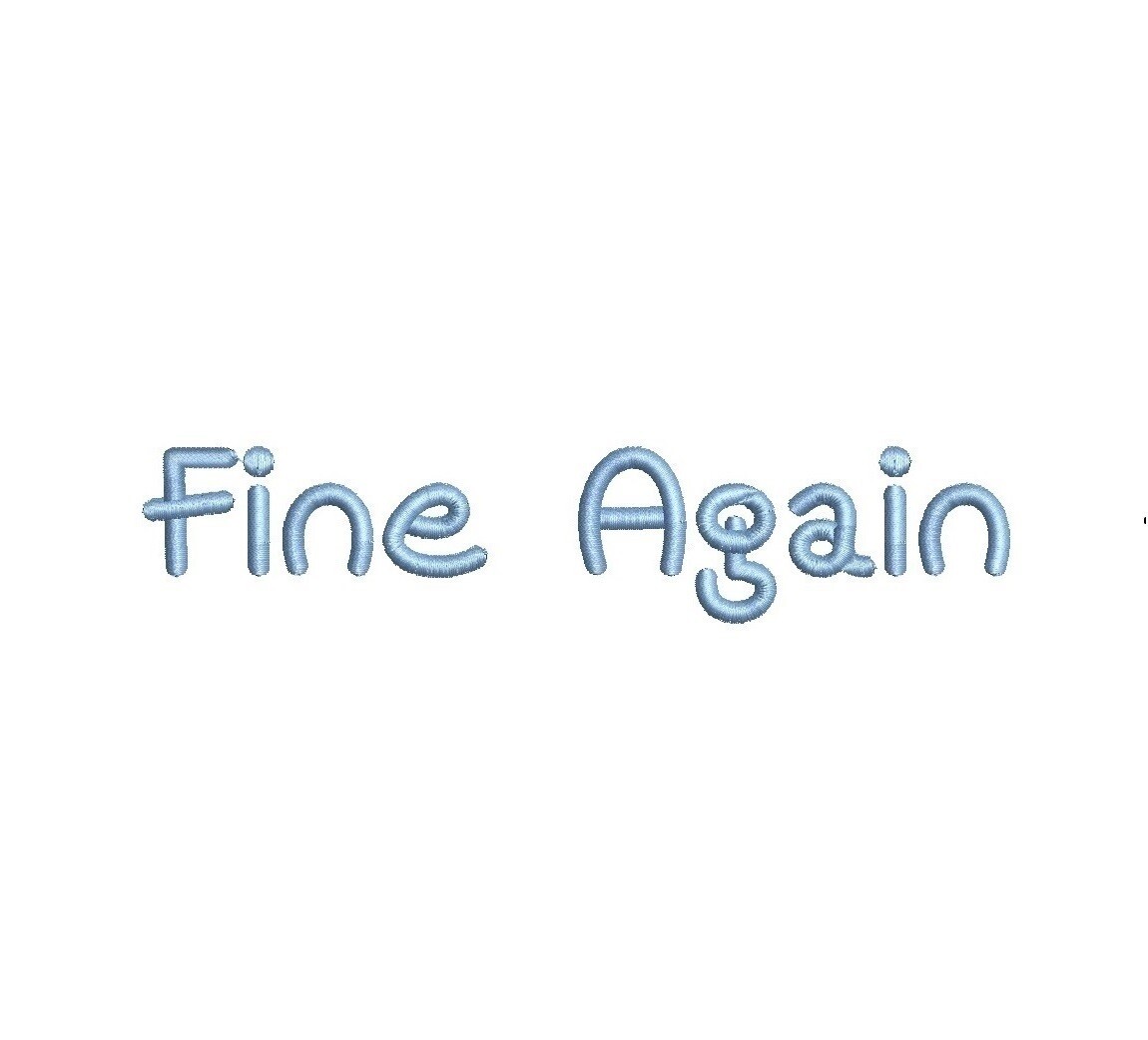
Introducing Fine Again Regular ESA font - a refined and elegant typeface that exudes timeless beauty in your designs. Crafted with precision and attention to detail, this premium font guarantees a seamless and enjoyable design experience. Compatible with Wilcom Studio e4.5.6 and Hatch 3 versions and up, this versatile font ensures smooth embroidery creation. Whether it's sophisticated projects, delicate text, or classic branding, Fine Again Regular ESA font adds a touch of sophistication to any endeavor. Elevate your creations with its timeless charm and create designs that stand the test of time. Get it now and embrace the beauty of elegance.